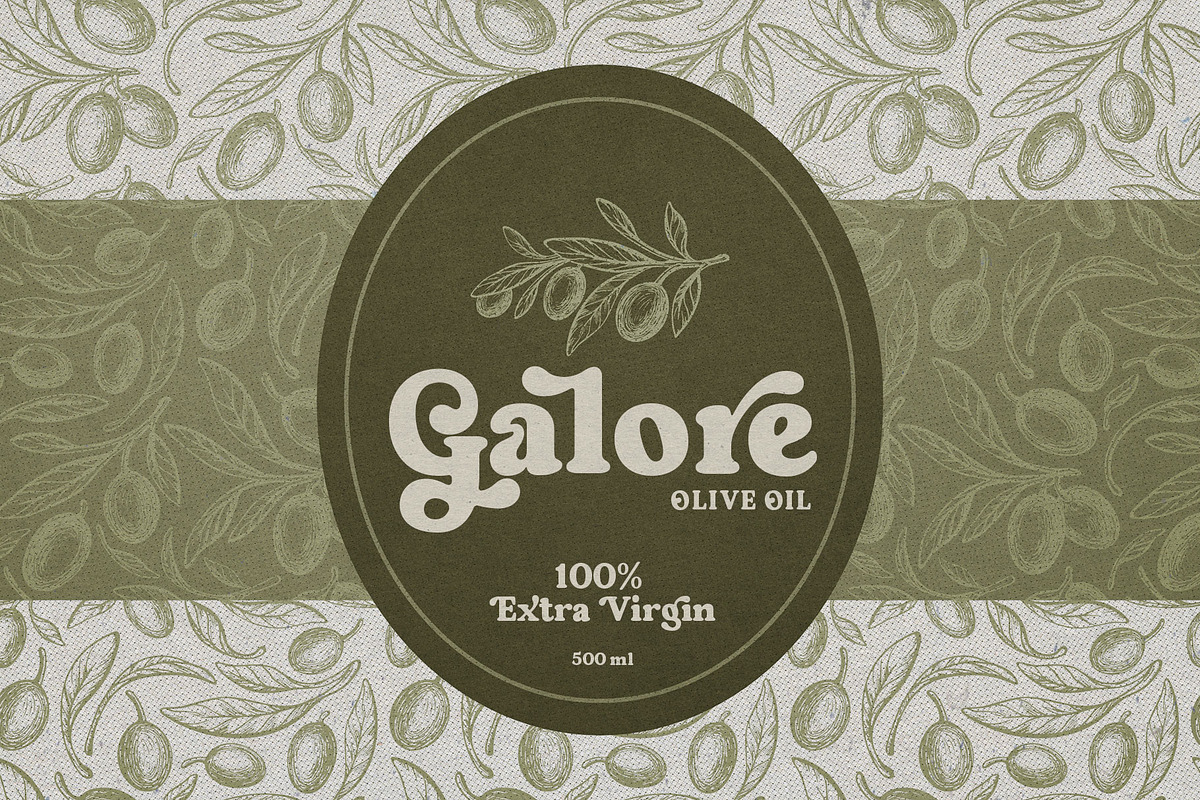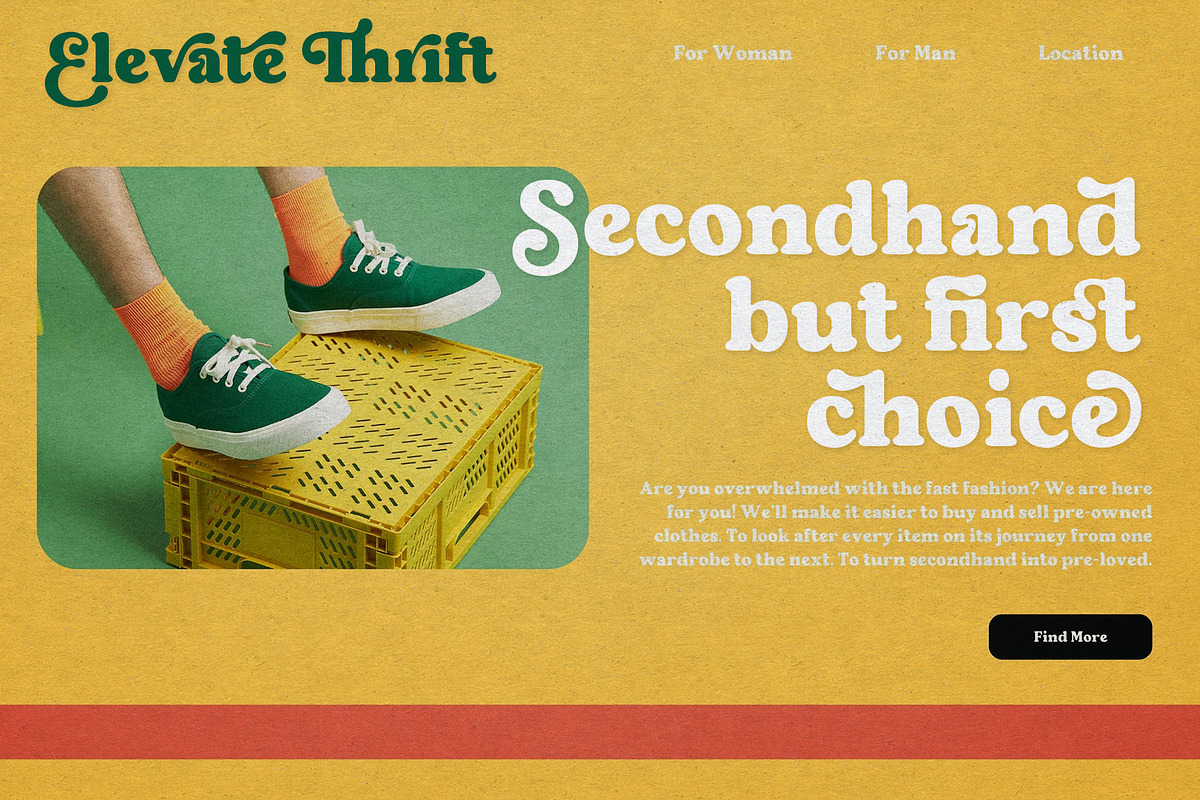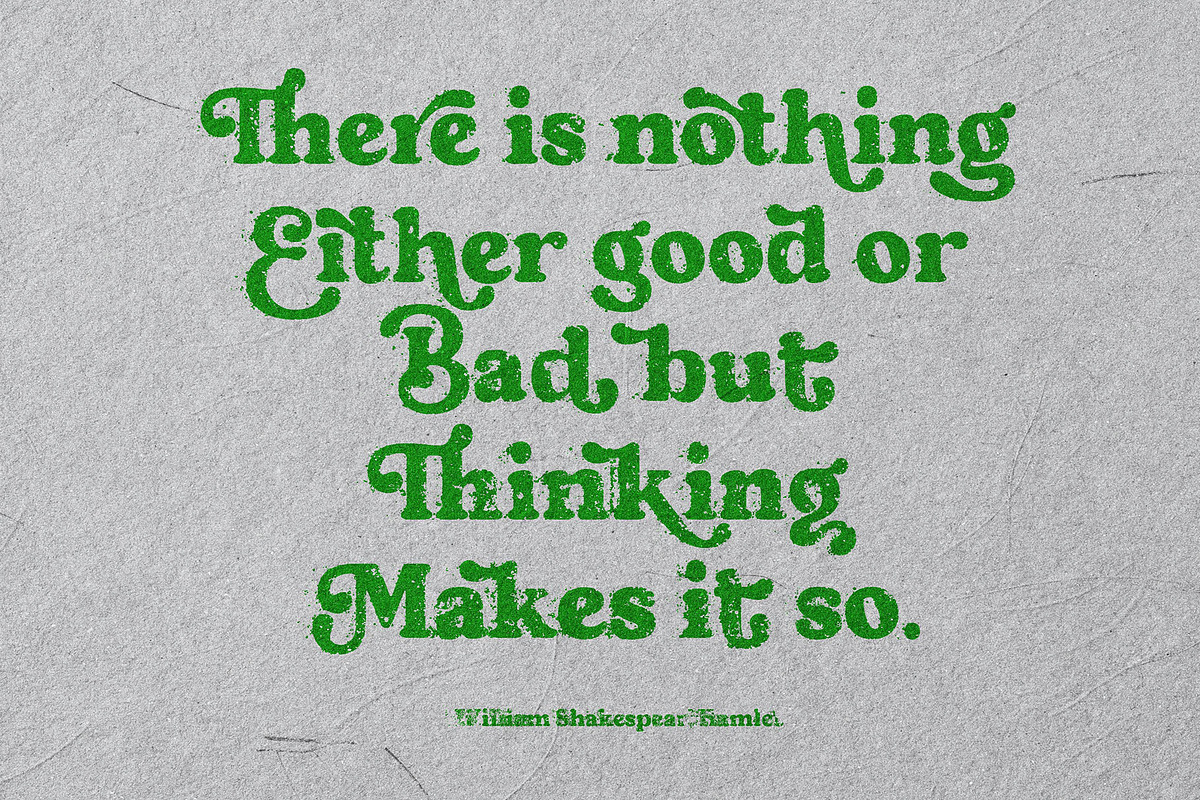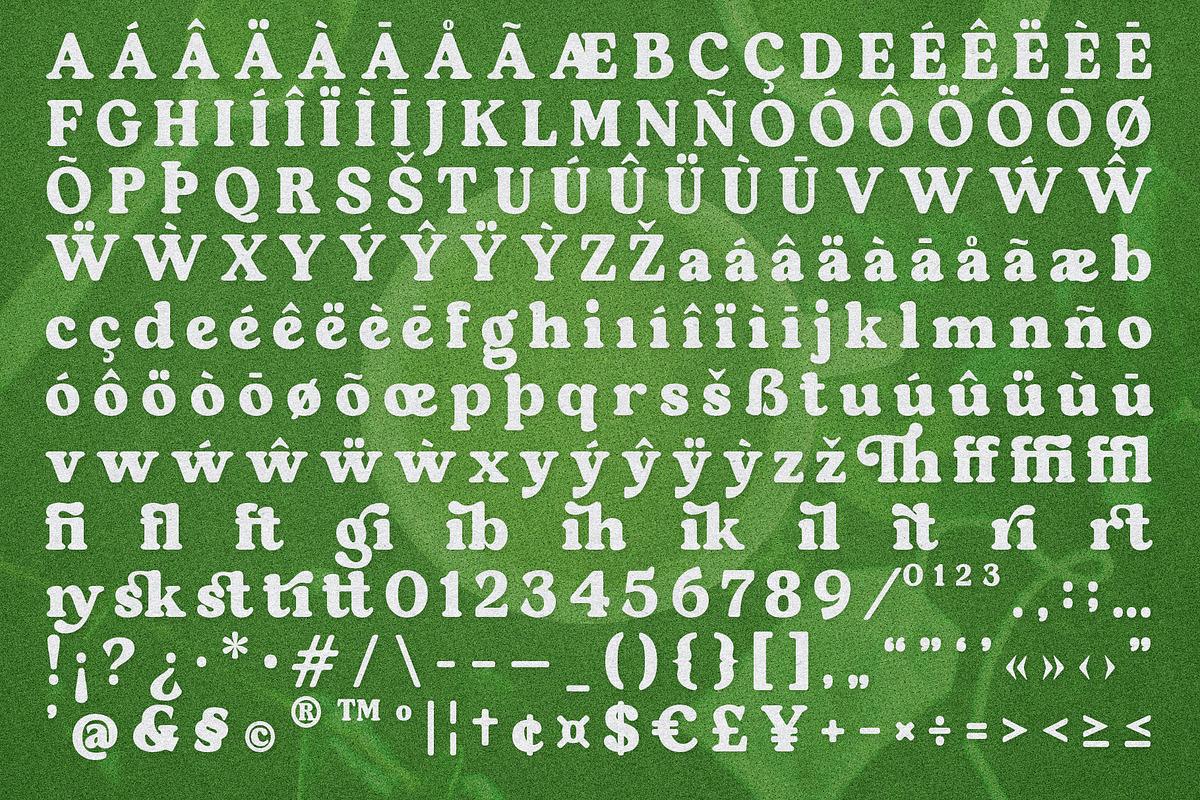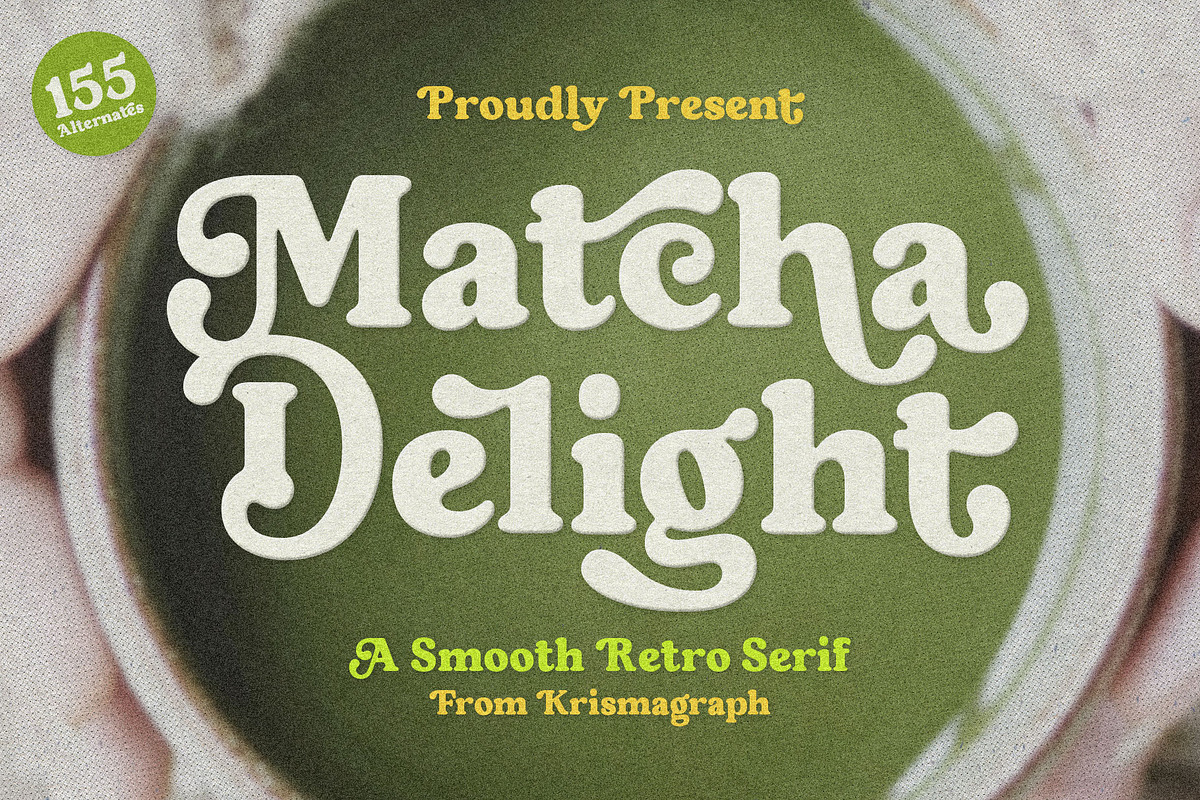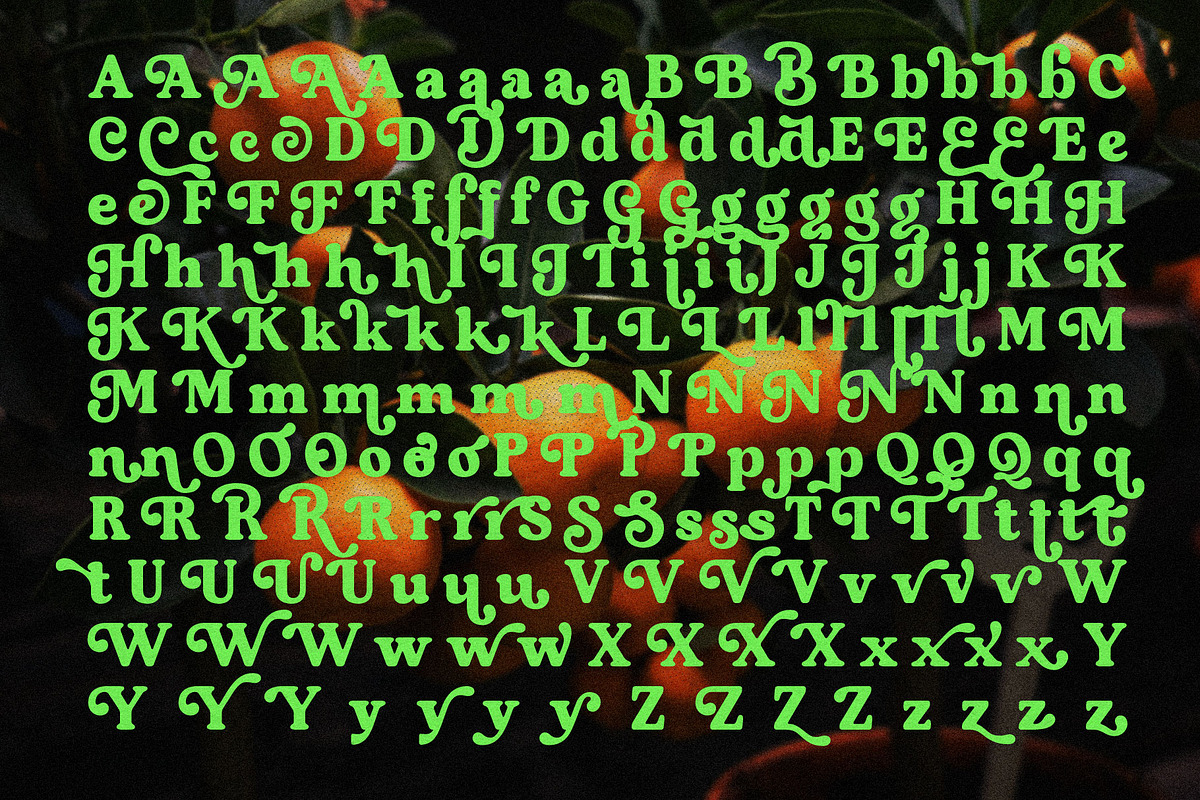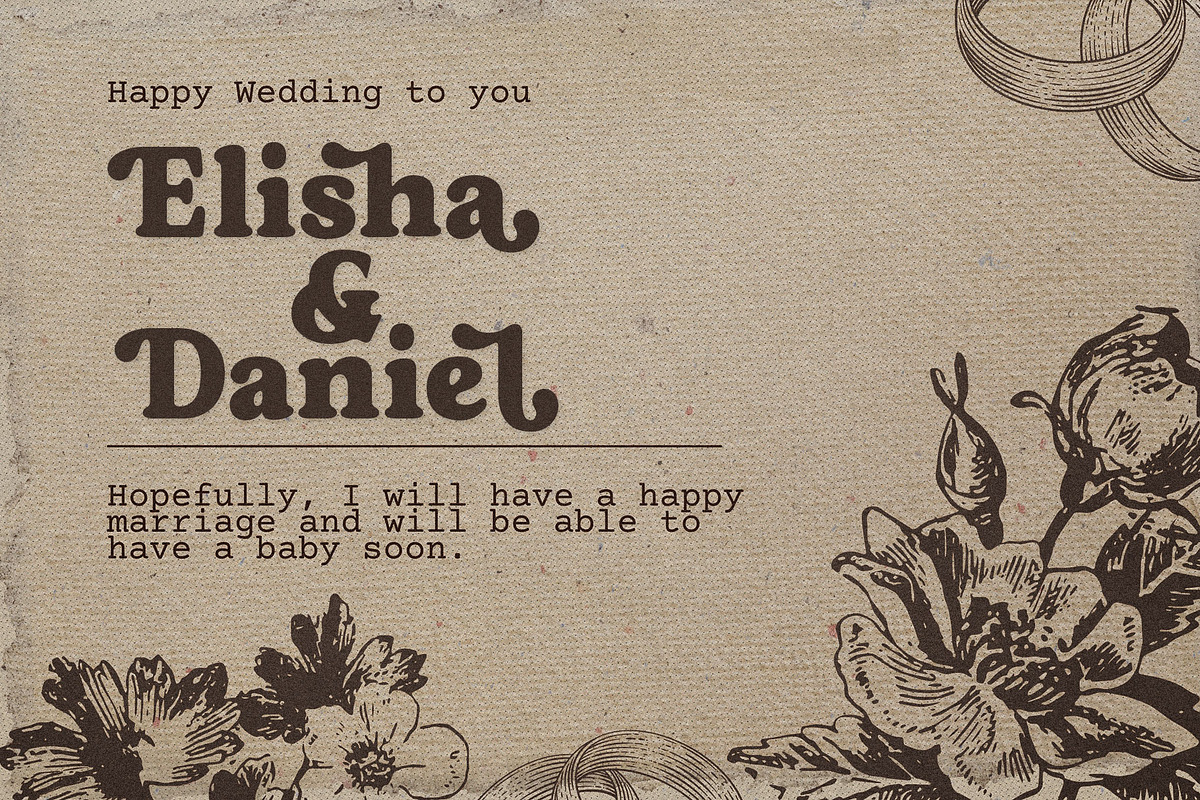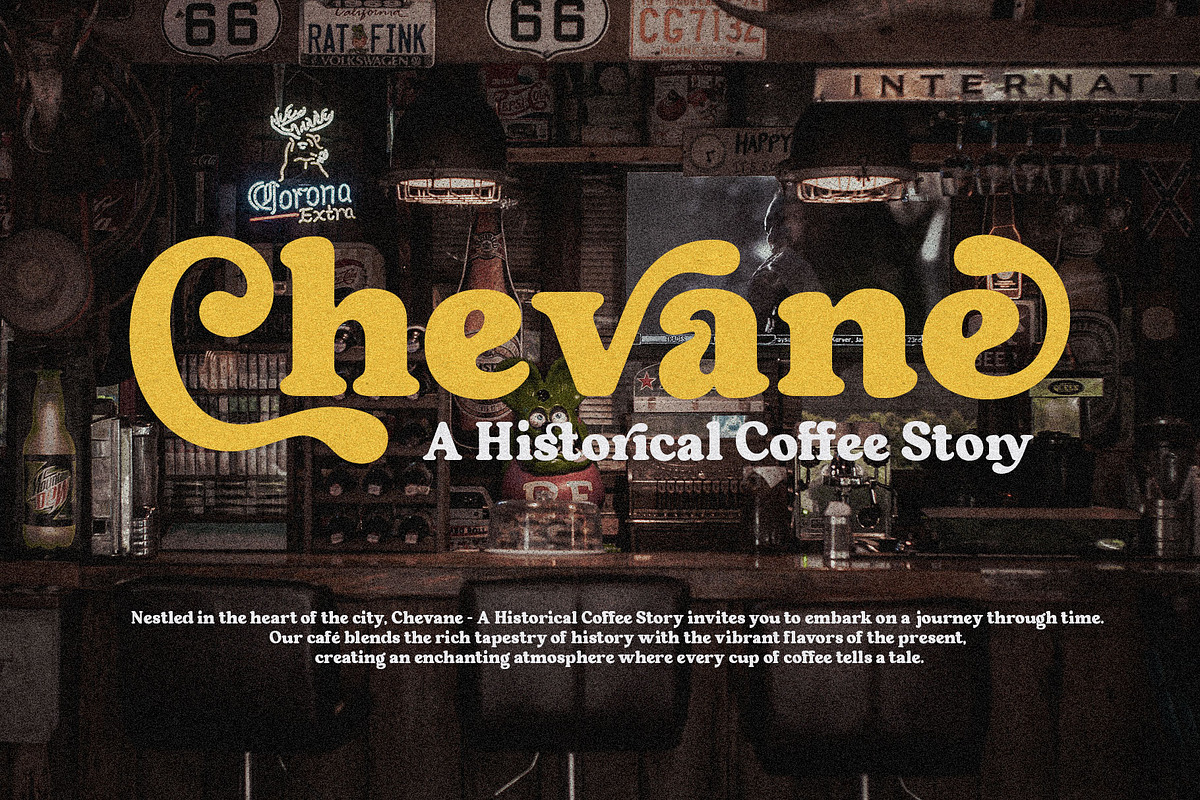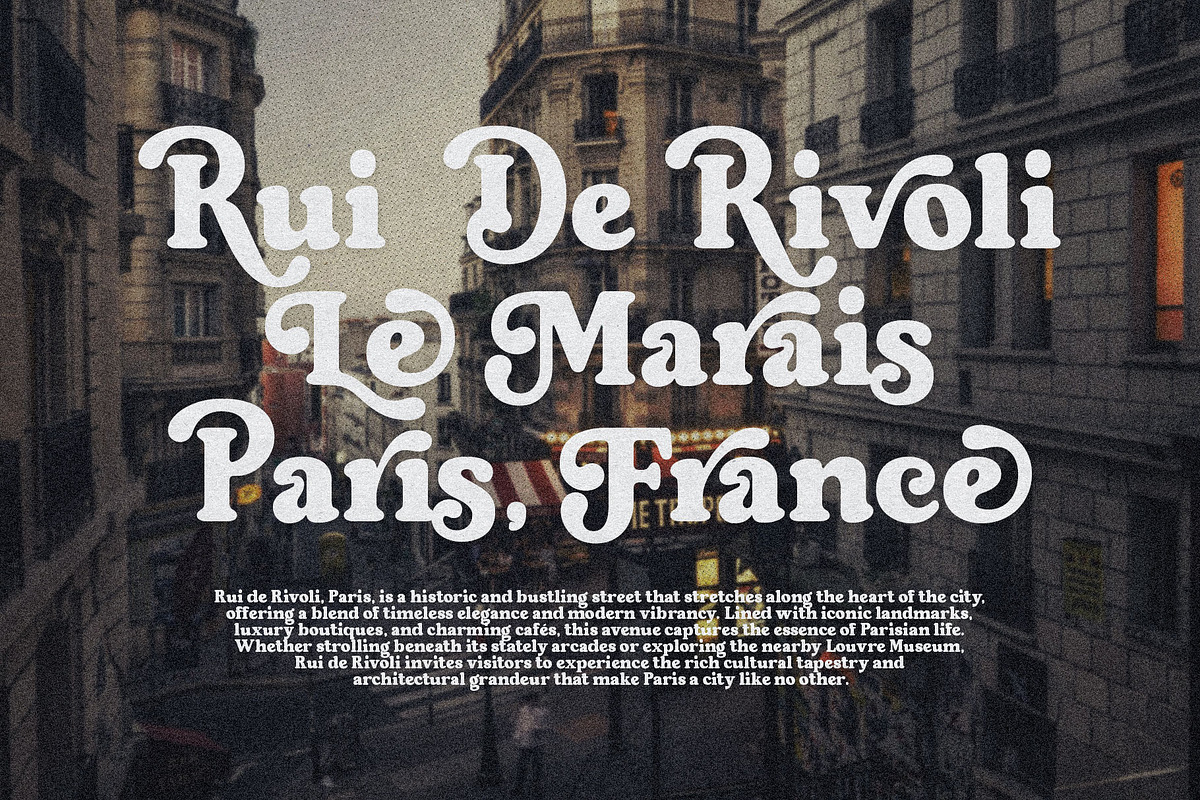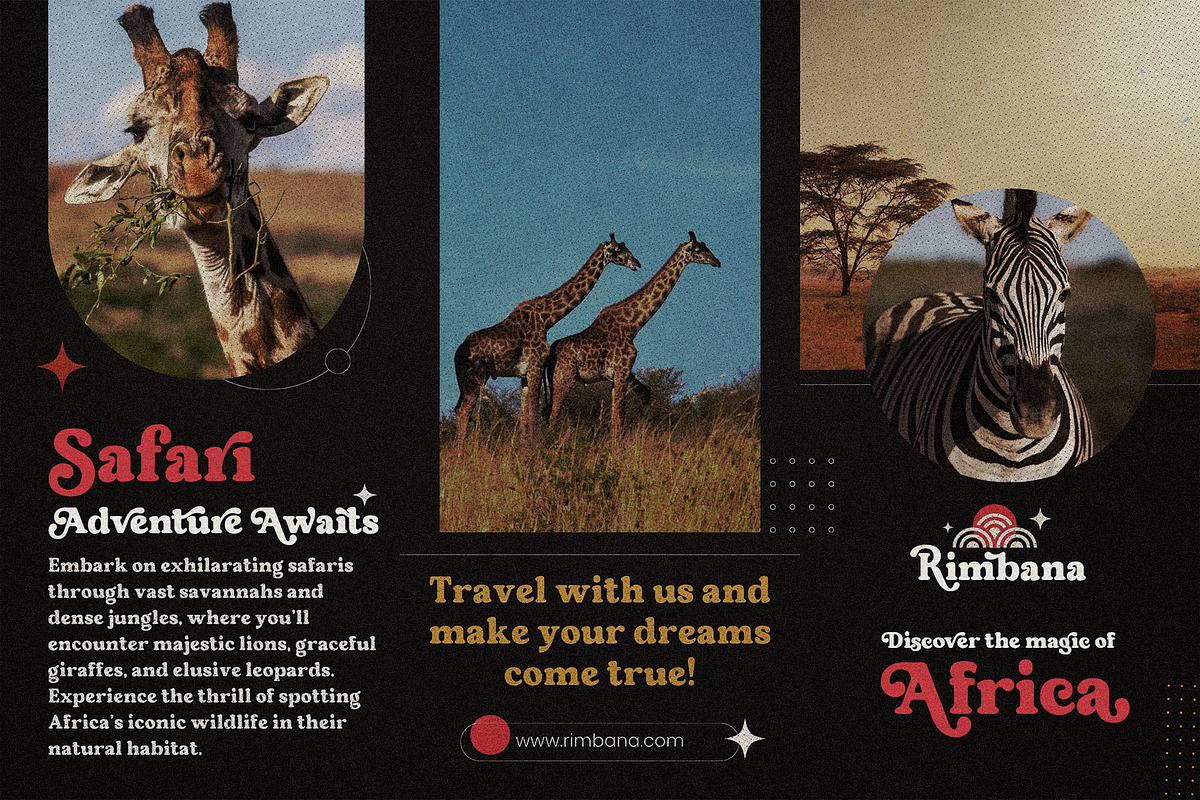
Matcha Delight | Retro Bold Serif
Matcha Delight is a retro serif font that exudes effortless charm and unwavering confidence. Its unique character brings a sense of familiarity, evoking warm, nostalgic memories with every glance. Designed with versatility in mind, Matcha Delight offers Stylistic Alternates, Discretionary Ligatures, and an array of extra alternates, all easily accessible via OpenType features or directly from the Character or Glyphs window. Plus, with PUA encoding, the additional glyphs are readily available in most graphic design software.
Perfect for modern graphic design that calls for a touch of the familiar, Matcha Delight shines in logos, packaging, restaurant branding, and any display use. It also makes a striking impact in headlines or shorter texts, adding a timeless yet contemporary flair to your designs.